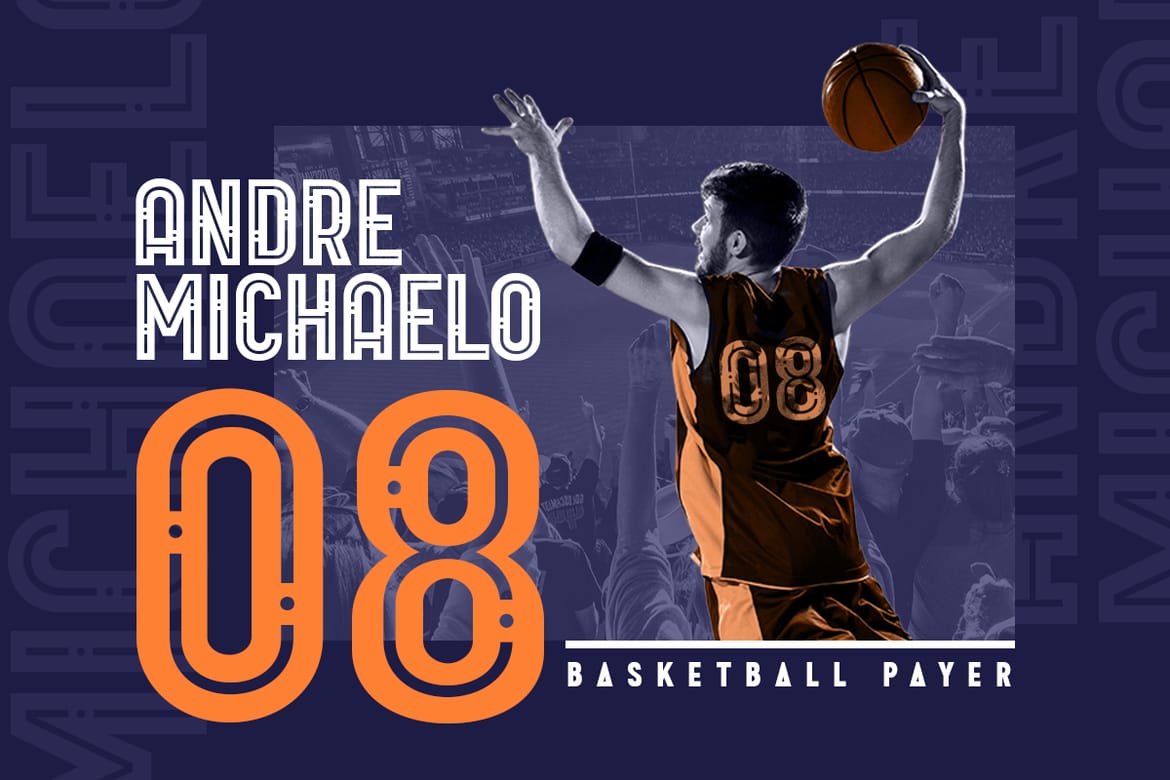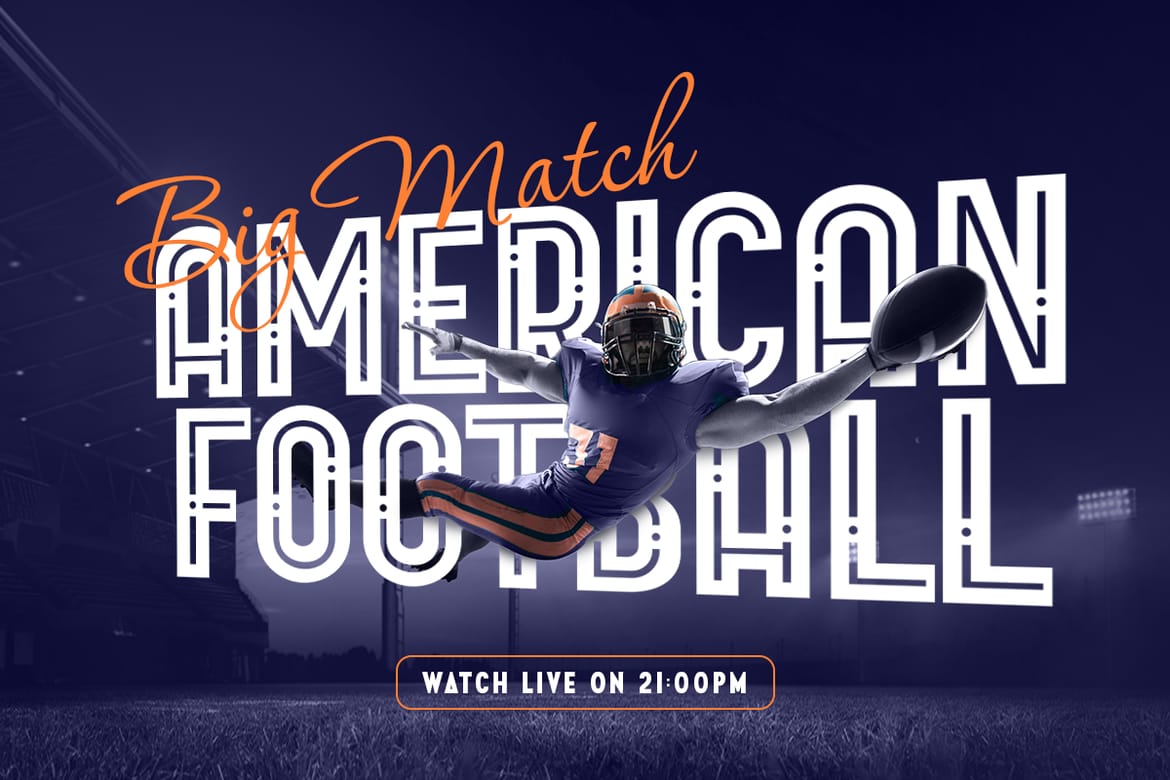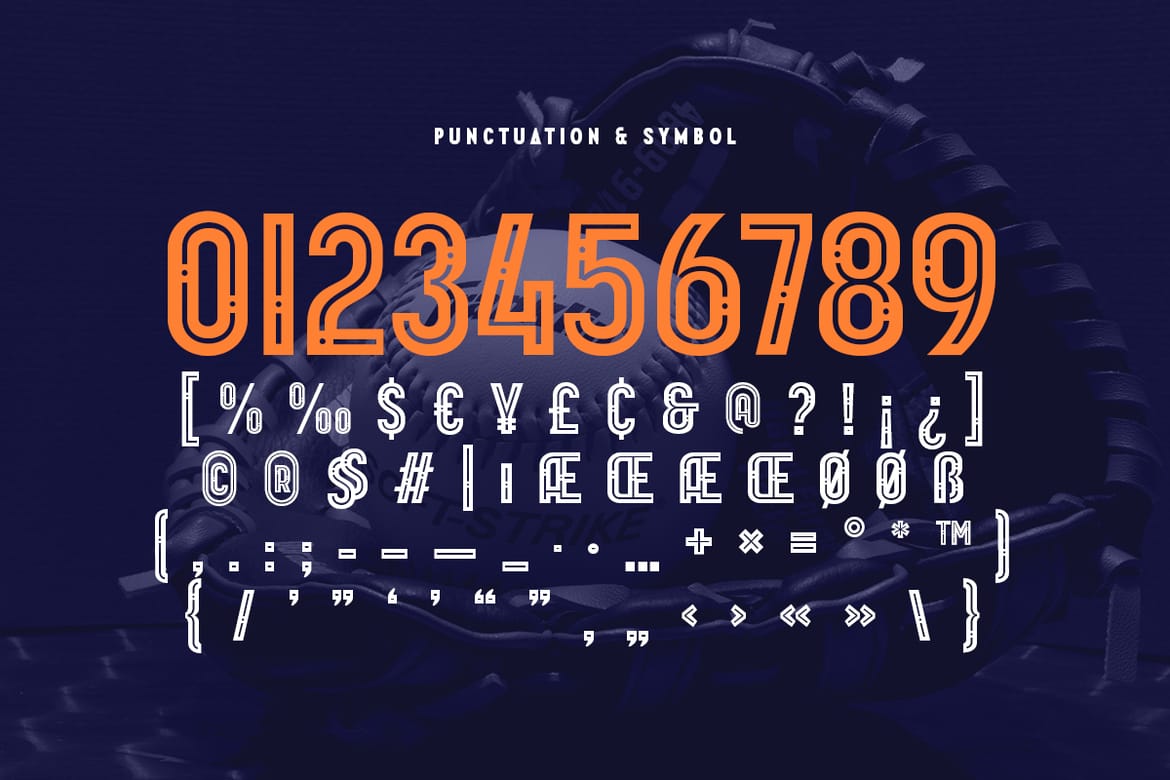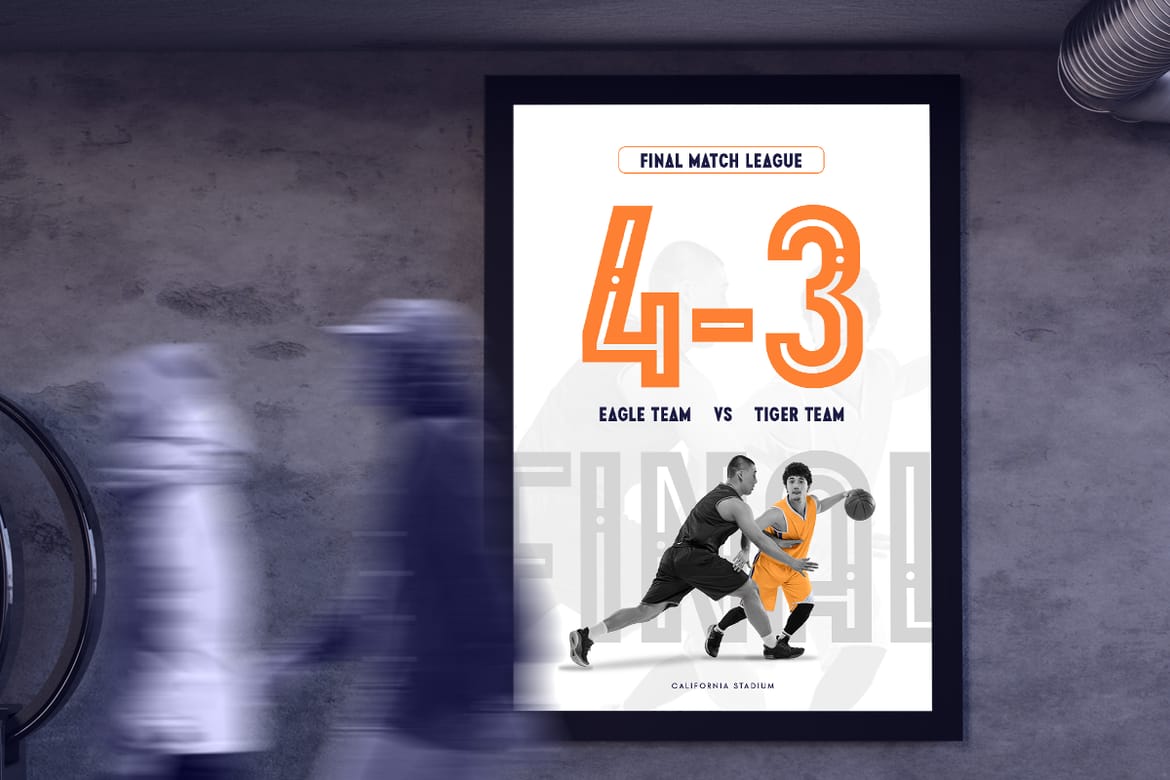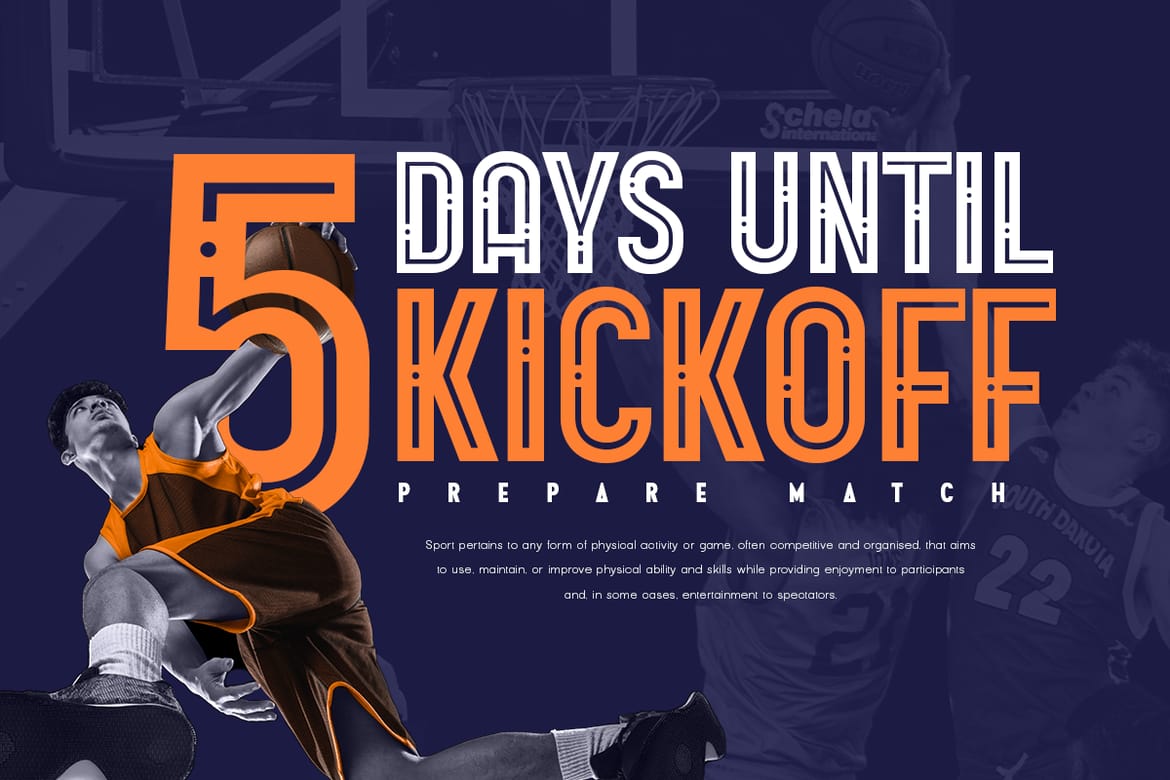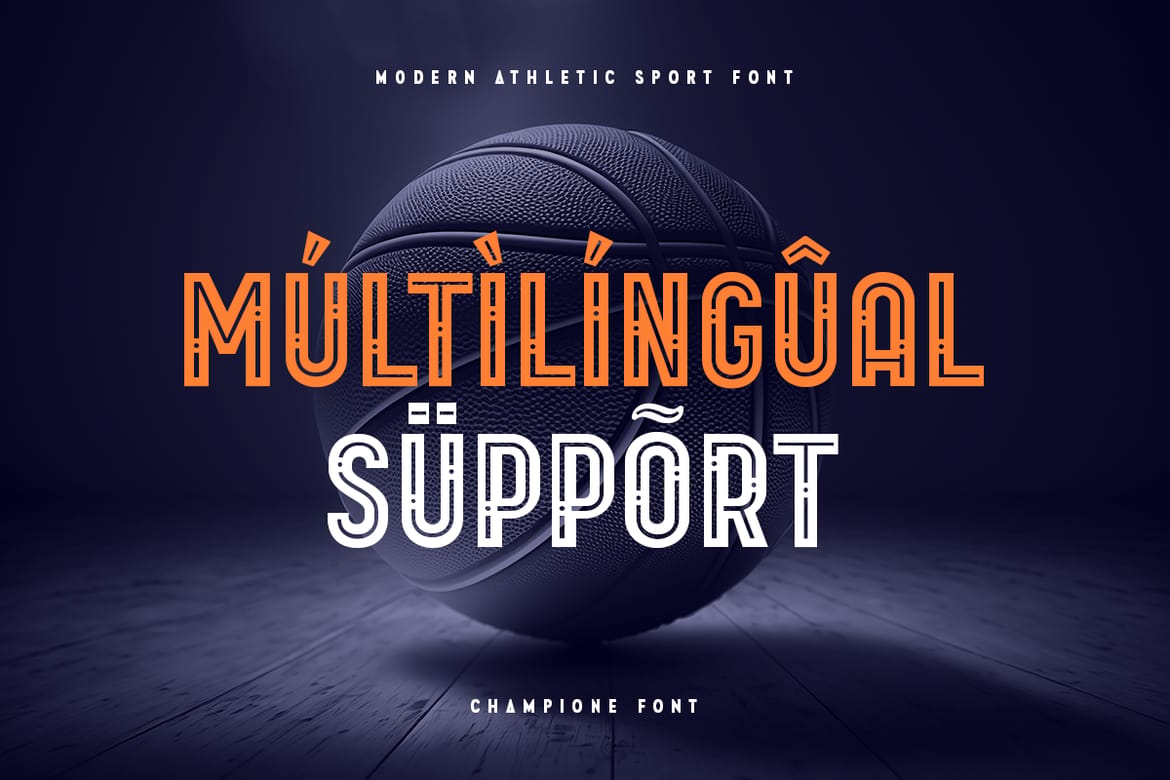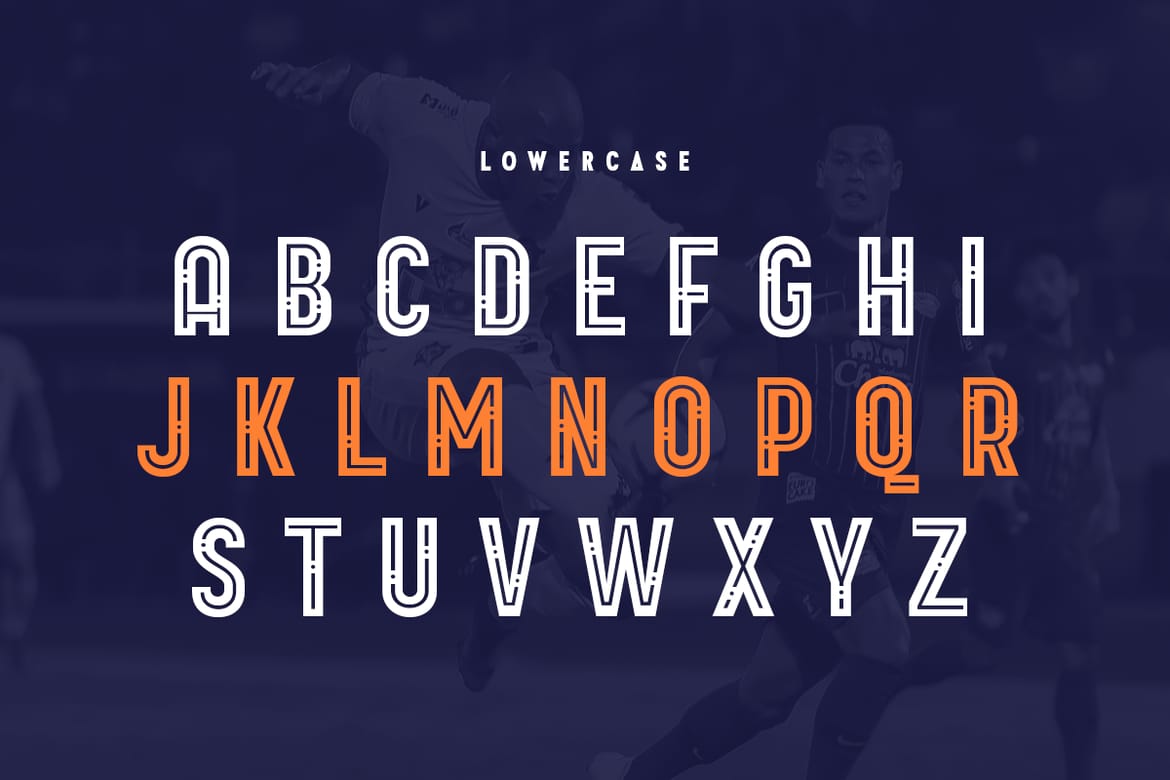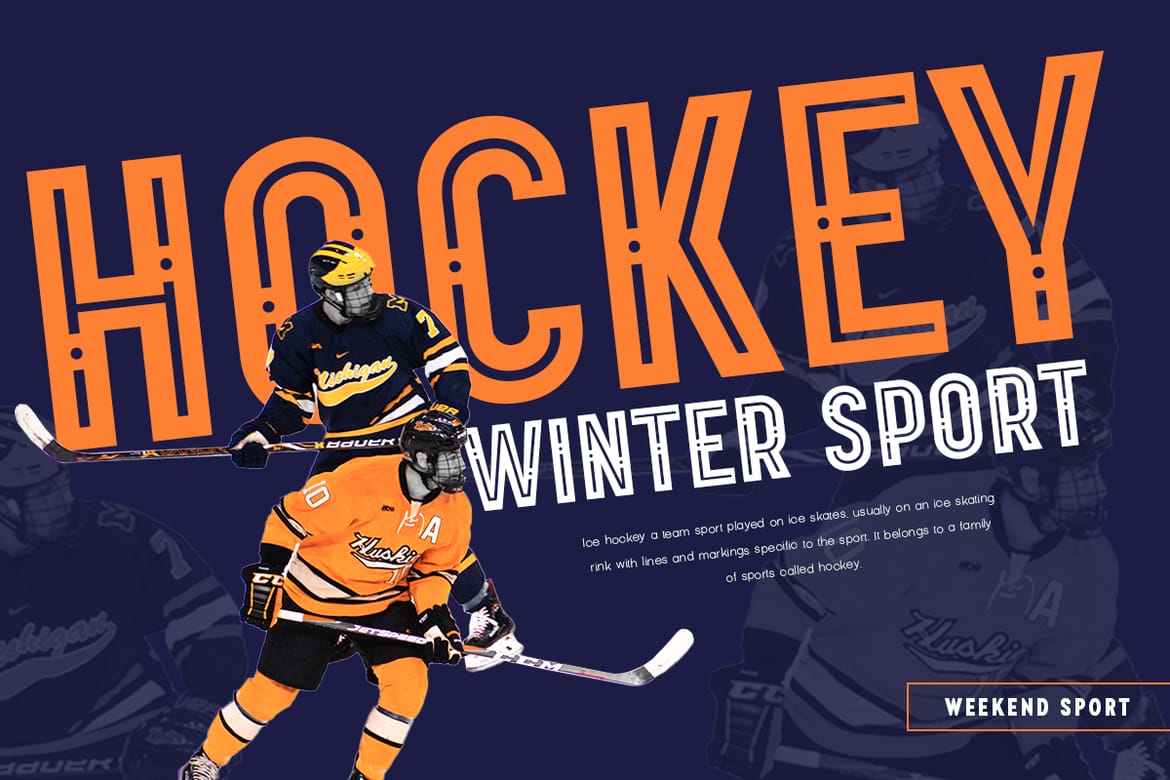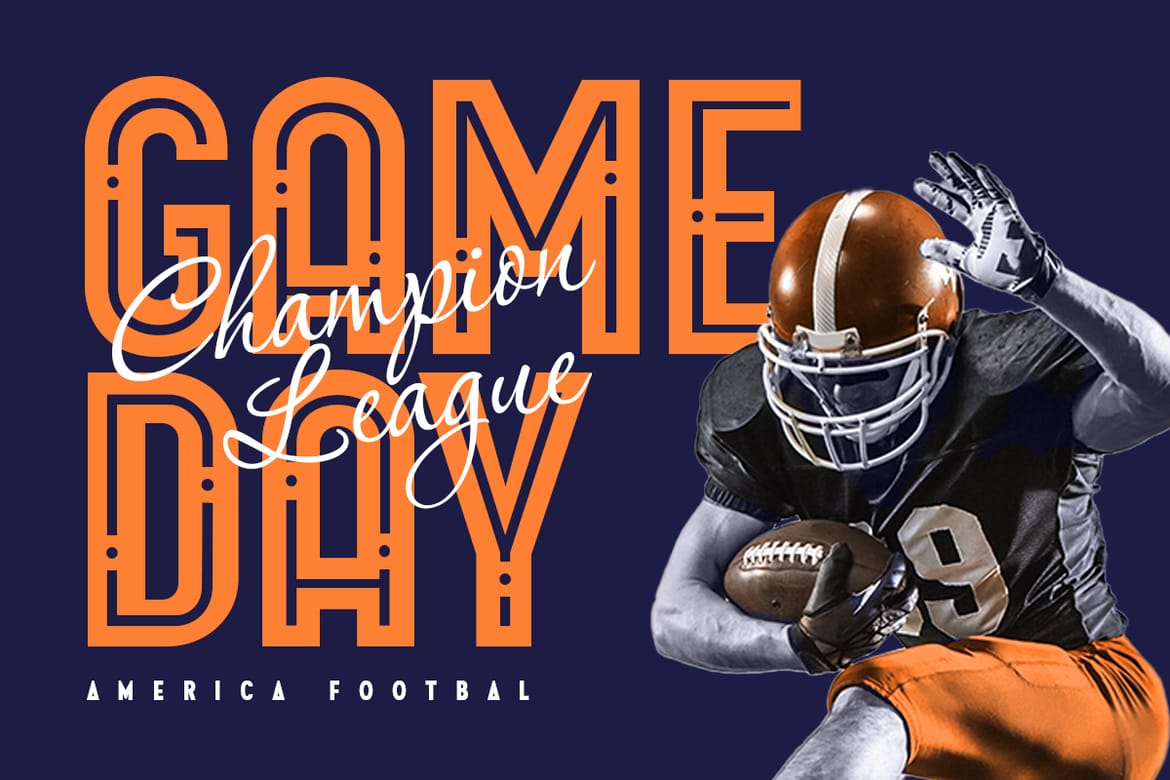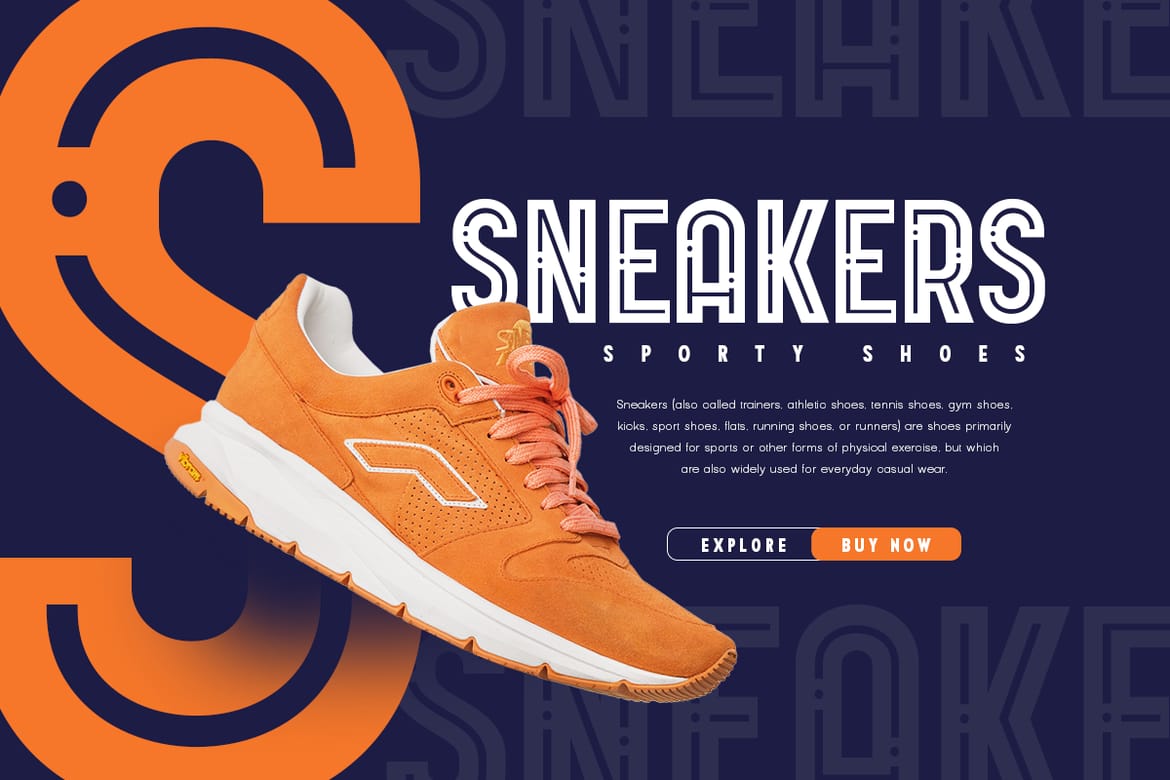
Champione Modern Athletic Sport Font is a Modern Futuristic Sport Font that stylish, fancy and unique characters are ready for Sport event, that you can combine to get any variations and unique shapes easily just in seconds with great characters. It is a Sans Serif Bold font that perfect for sport branding projects, jersey, logo, wedding designs, social media posts, advertisements, product packaging, product designs, label, watermark, and any projects, it makes with a high level of legibility.
Character set A-Z
All Uppercase
Numerals & Punctuation
Accented Characters (West Europe)
Stylistic alternates
- Bold futuristic sport font
- Stylistic alternates included